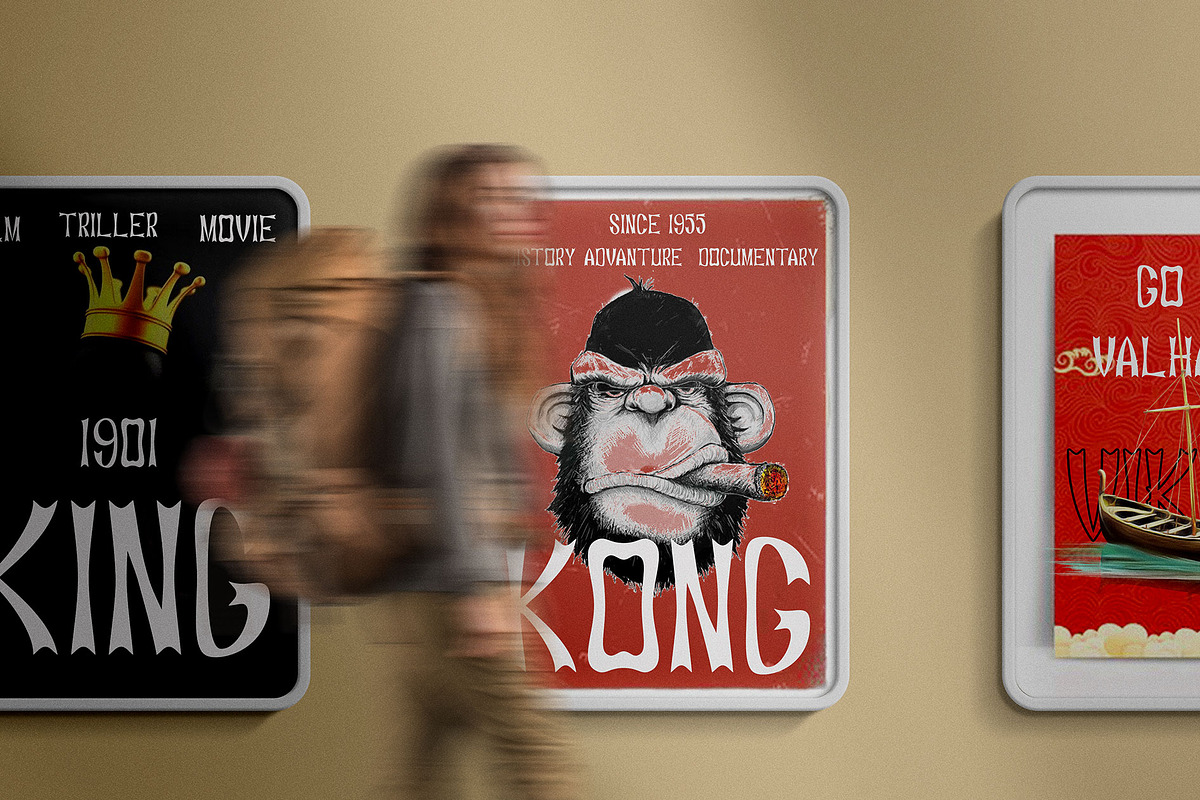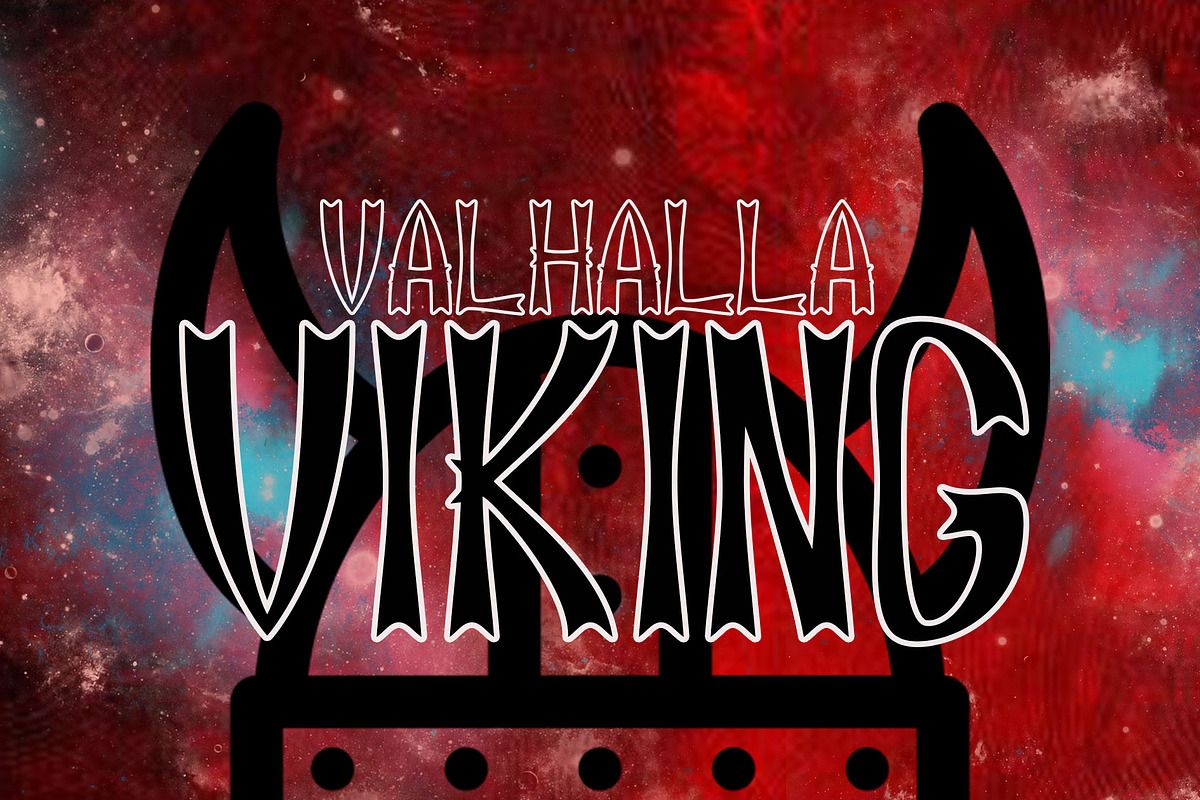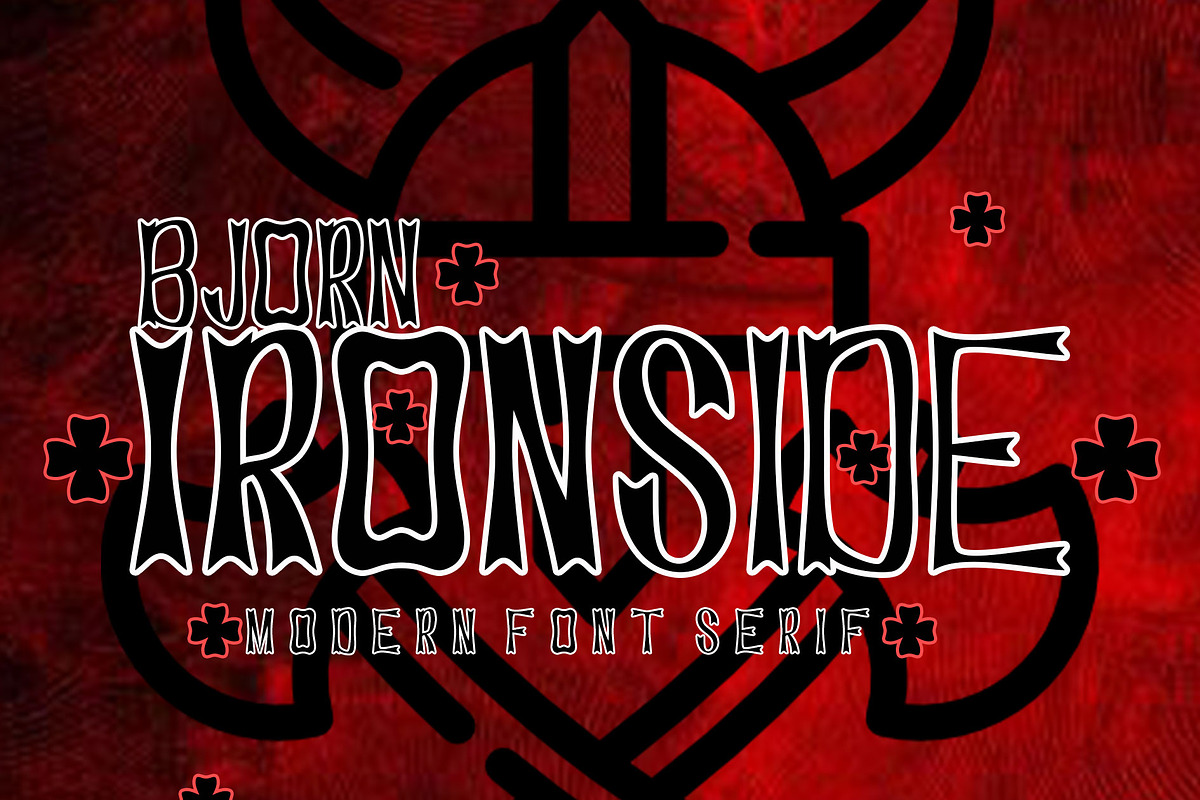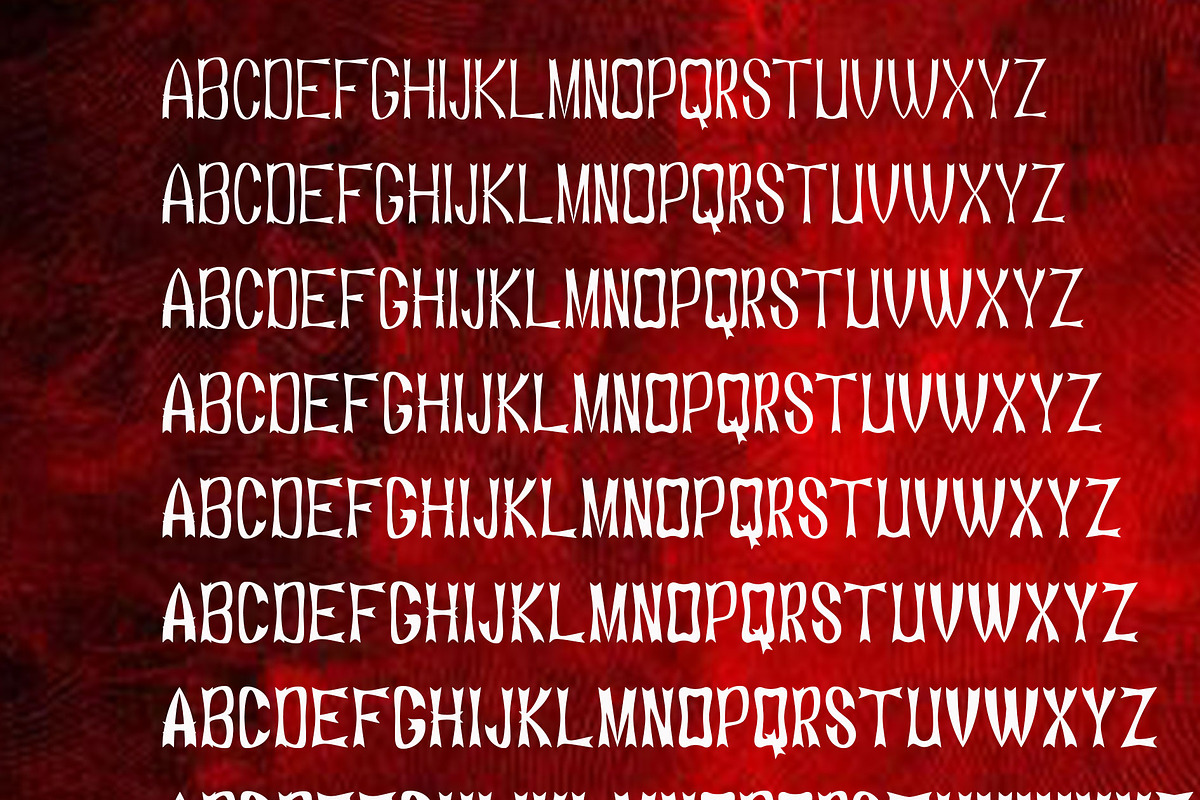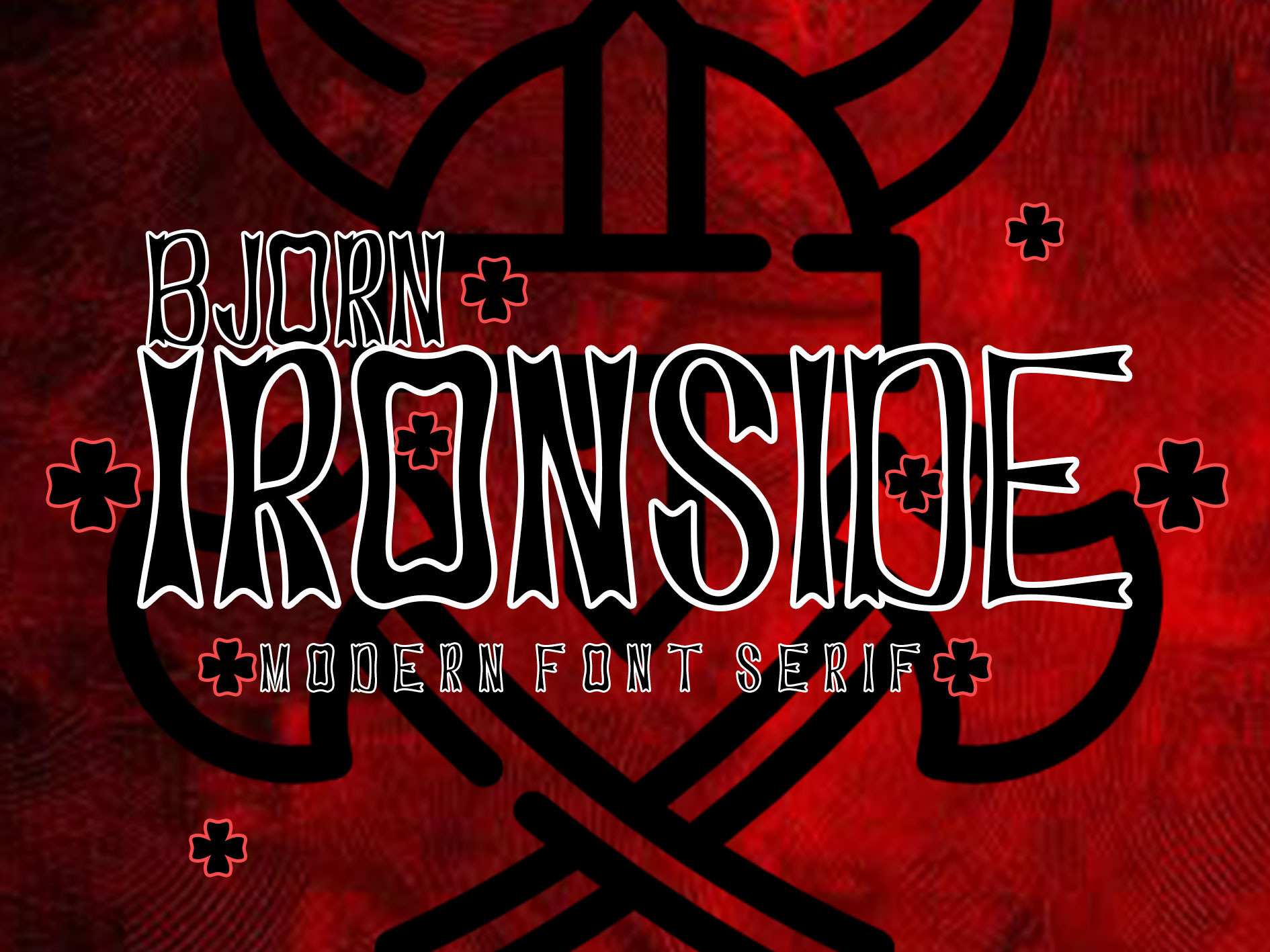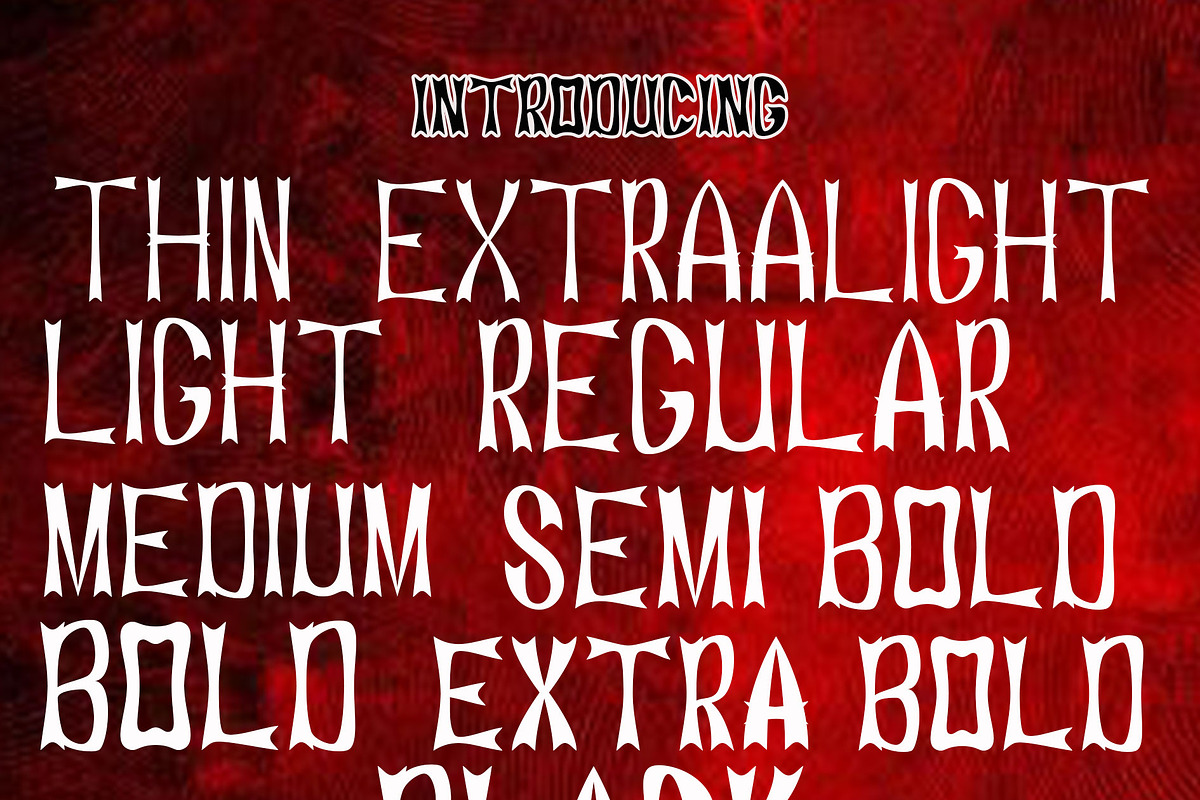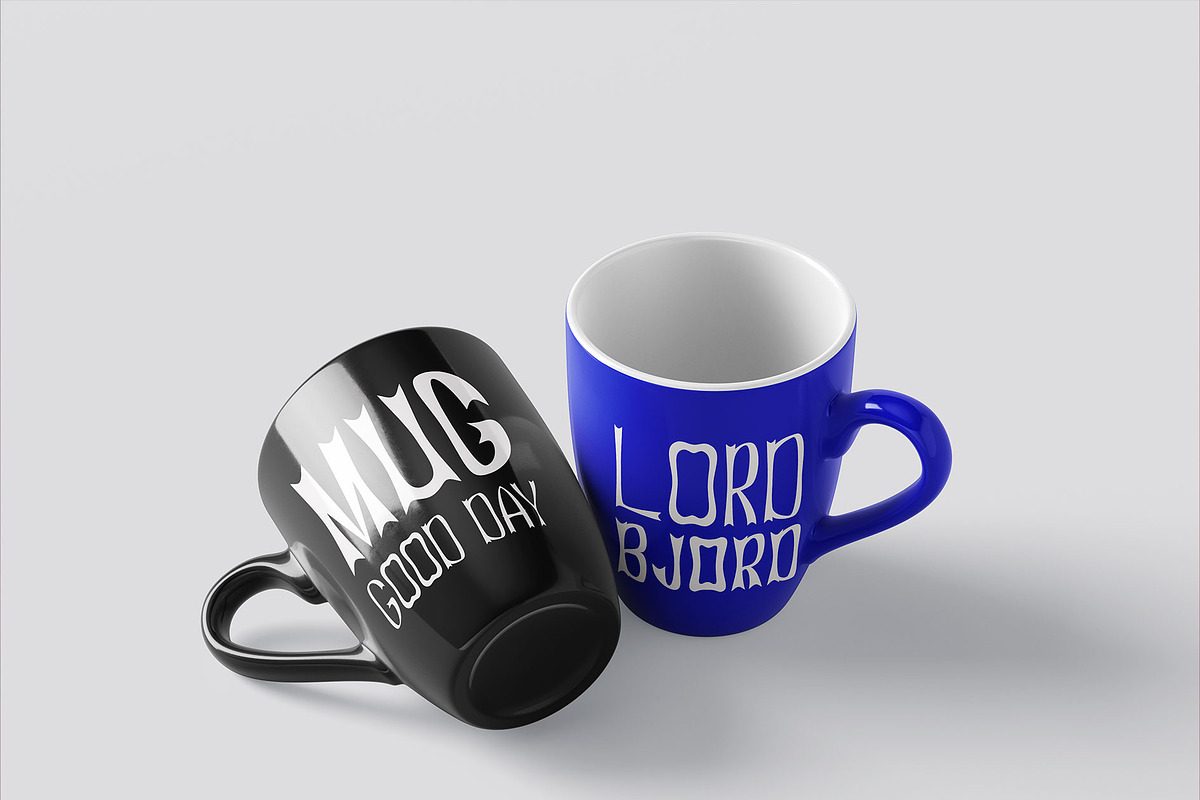
Ironside family font serif
it is a geometric family typeface available in nine thicknesses. This is a simple and elegant modern font family, this font family is very suitable especially for headlines, titles, brands, posters, packaging, titles, logos, and so on. thank you